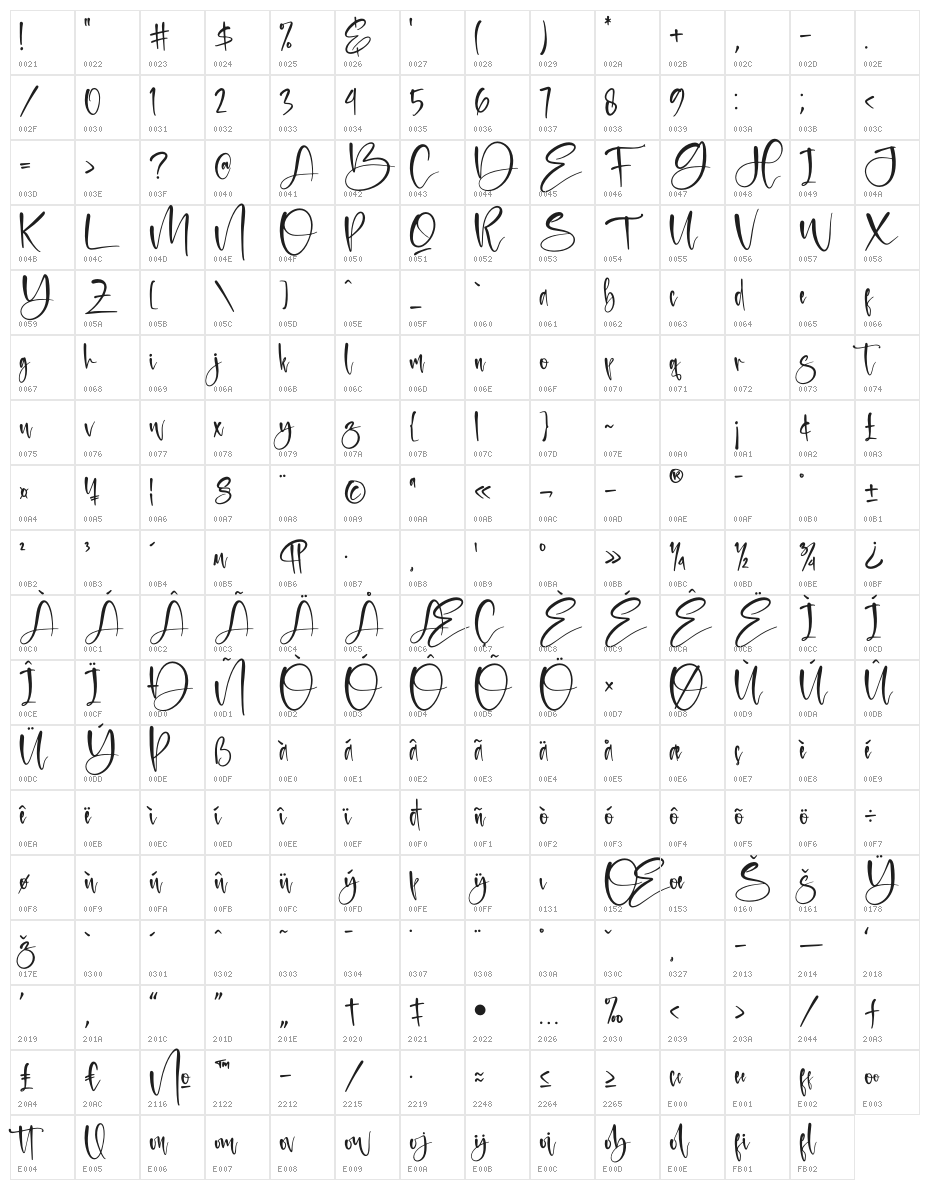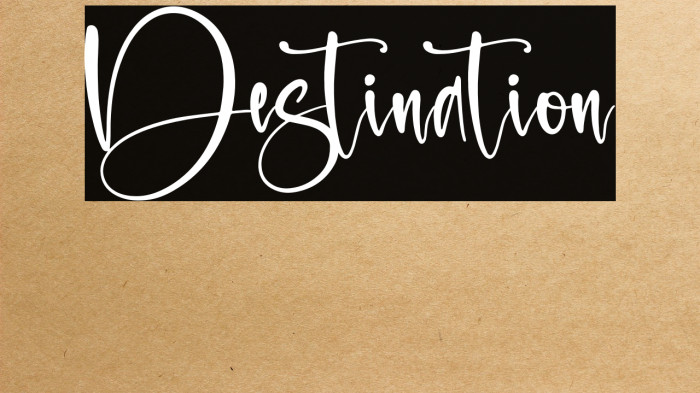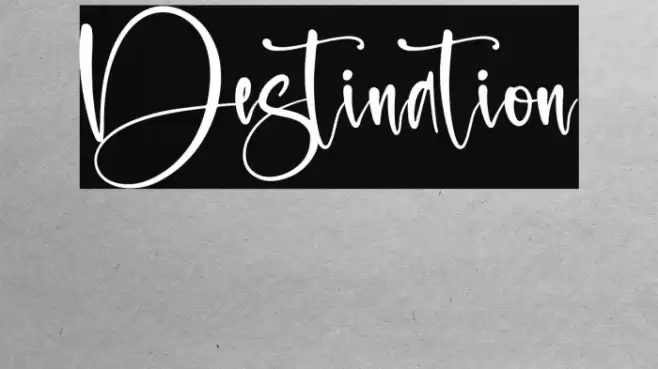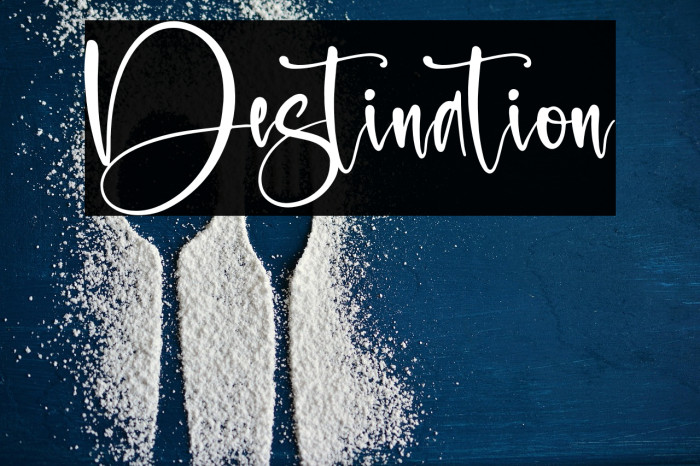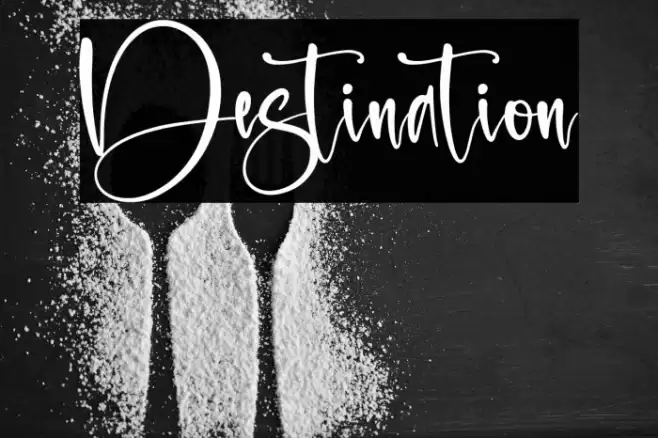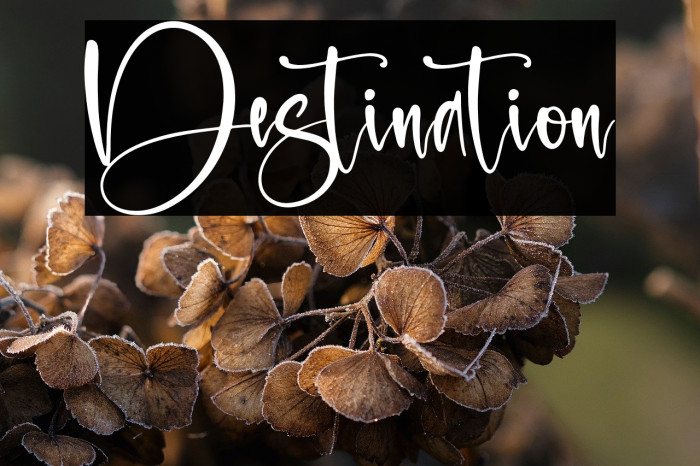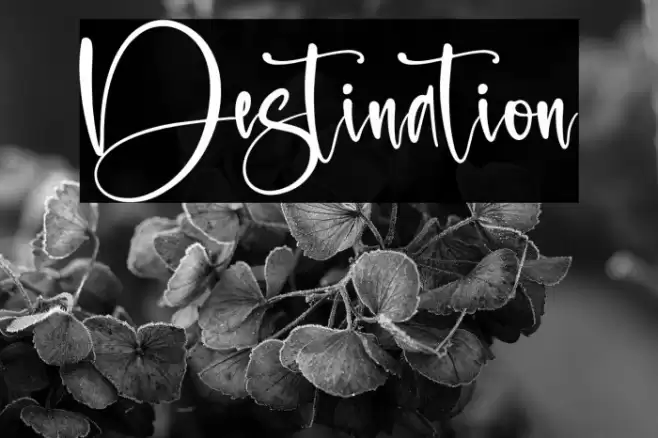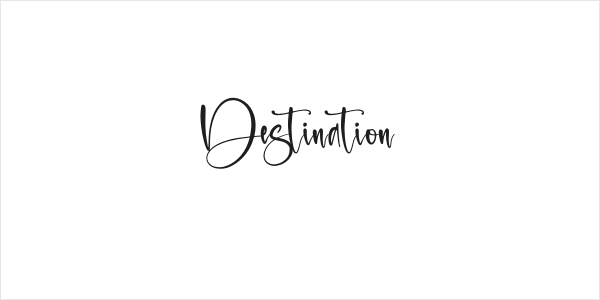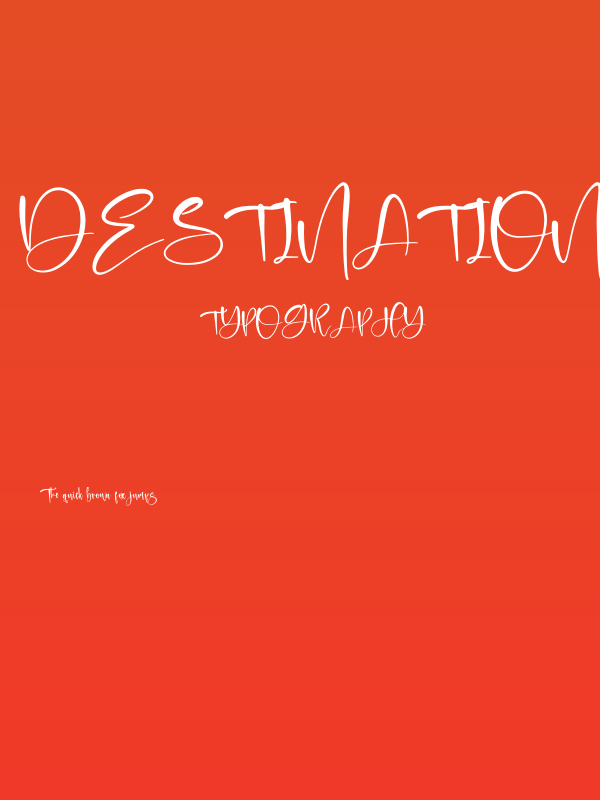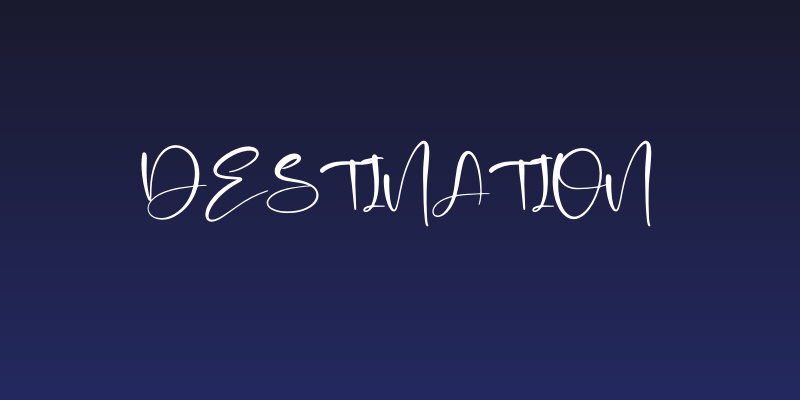
Destination Font
Destination Description
This font features a dynamic and expressive handwritten style, characterized by its fluid and flowing strokes. The uppercase letters exhibit a playful and artistic flair, with varying line thickness that adds a sense of movement and energy. The lowercase letters maintain this lively aesthetic, with some characters extending below the baseline, enhancing the font's whimsical nature. The numerals are consistent with the overall style, offering a cohesive look. Special characters are creatively integrated, maintaining the font's unique personality. The overall impression is one of creativity and spontaneity, making it suitable for projects that require a personal touch.
| Use Case | Logos, Invitations, Creative projects |
| Proposed Projects | Ideal for greeting cards, invitations, personal branding, and creative projects that benefit from a personal, artistic touch. |